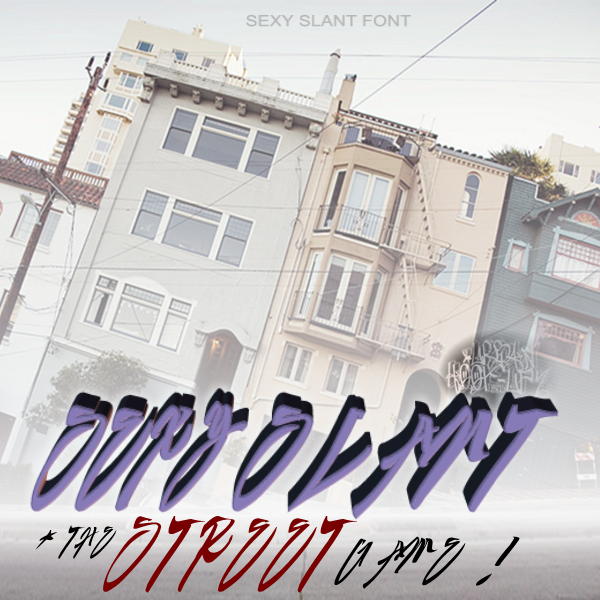
SEXY SLANT HAND SCRIPT. This Font was one I made and was never completely finalized. All the letters are there for the artists that know how to FREAK It. Have fun and Remember Urban Hook-UPz hooked you up! Haa Ha |